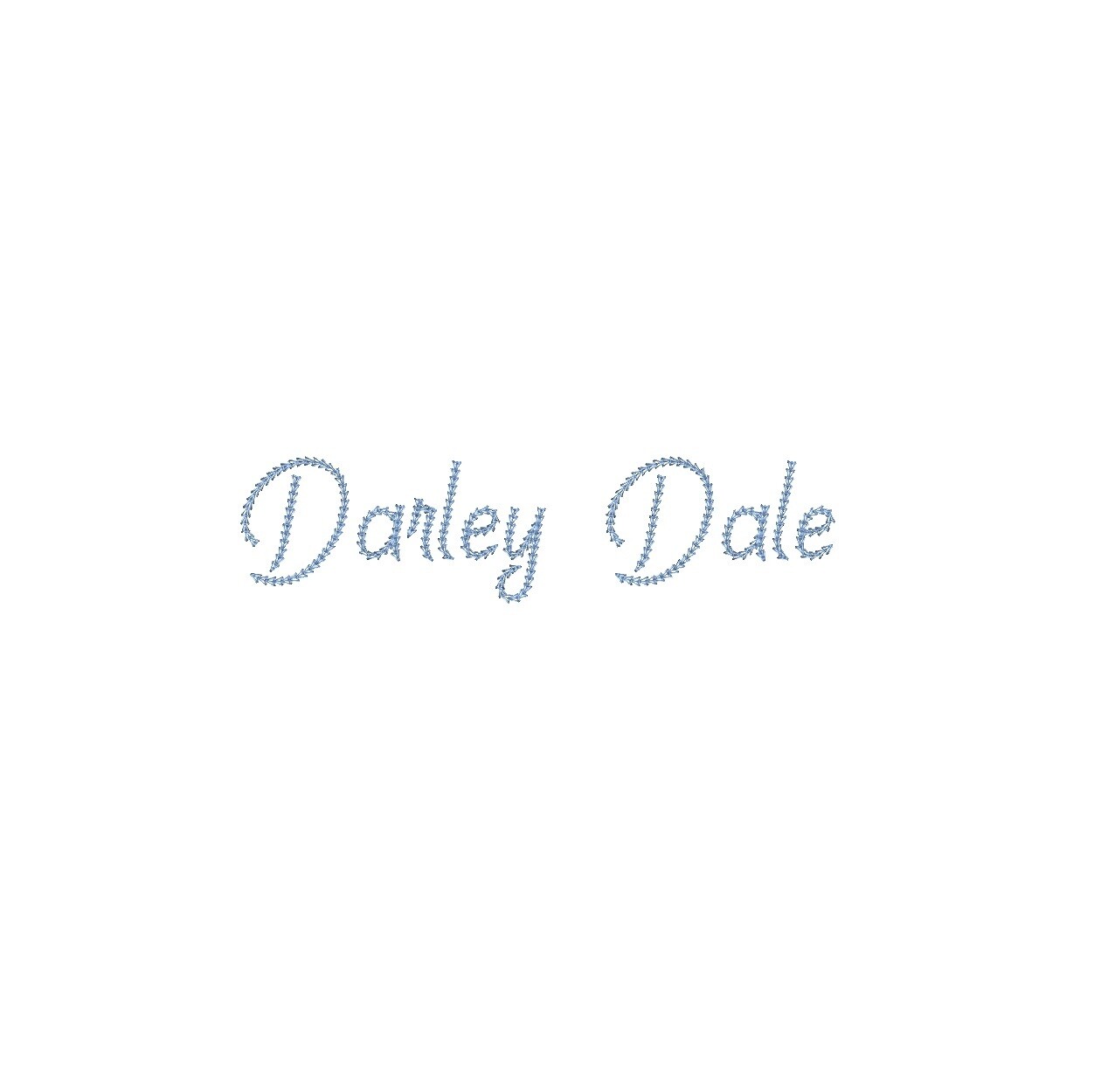
Elevate your embroidery with Darley Dale Chain Stitch ESA font. Ideal for Wilcom Studio e4.5.6 and Hatch 3 versions and newer, it brings sophistication to your designs. Meticulously crafted, the font's chain stitch artistry adds depth and allure to every project. Seamlessly integrate for captivating results that stand out. Darley Dale transforms fabric into a canvas of innovation with its versatile charm. Elevate your embroidery with this seamless blend of technology and artistry. Experience the power of Darley Dale Chain Stitch ESA font to redefine stitching excellence. Elevate your designs today for timeless impact.